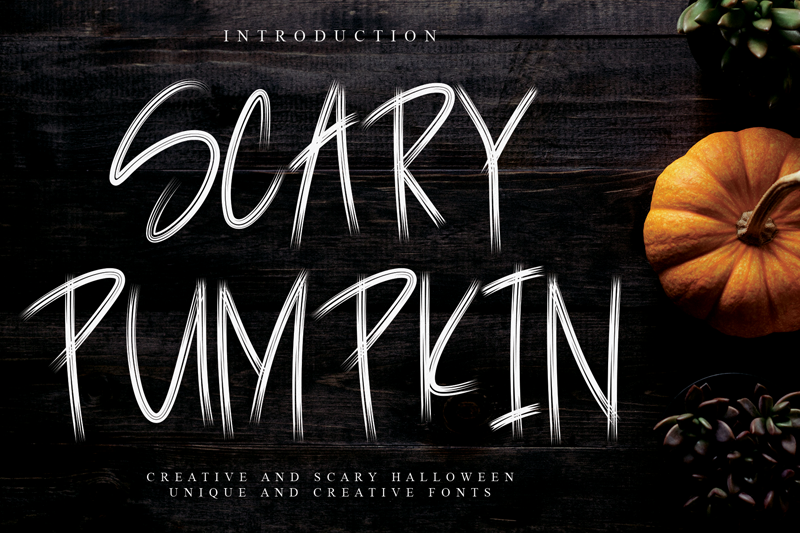
Font name: | Scary Pumpkin |
Author: | Belina Studio |
DETAILS special creative products for you, our products will give you an extraordinary experience. the latest style letters are perfect for wall displays, wedding invitations, social media post logos, advertisements, product packaging, product designs, labels, photography, watermarks, invitations, stationery, and any project that requires taste handwriting. Links for license and contact: ================================================== ========= https://scratchones.com gmail : afistakosongtujuh@gmail.com ================================================== ========= ATTENTION: WARNING!!! By installing or using this font, you agree to the Product Use Agreement: - This font has a FULL VERSION and is ONLY for PERSONAL USE. NO COMMERCIAL USE! - If you need CUSTOM PERMIT or COMPANY PERMIT please go to : (www.scratchones.com) - Any donations are greatly appreciated. Paypal account for donations: (paypal.me/scratchones) USE OF COMMERCIAL FONT WITHOUT PURCHASE OF LICENSE OFFICIAL www.scratchones.com will be fined 8X THE MINIMUM LICENSE FEES FROM THE LICENSE PRICE !!!! More... |